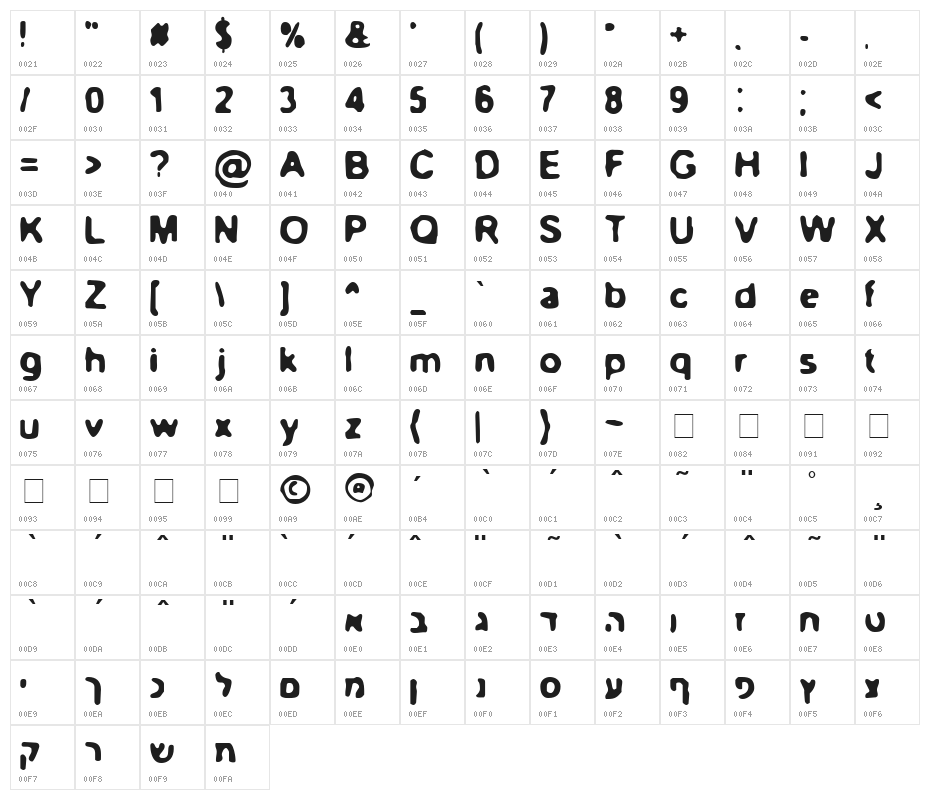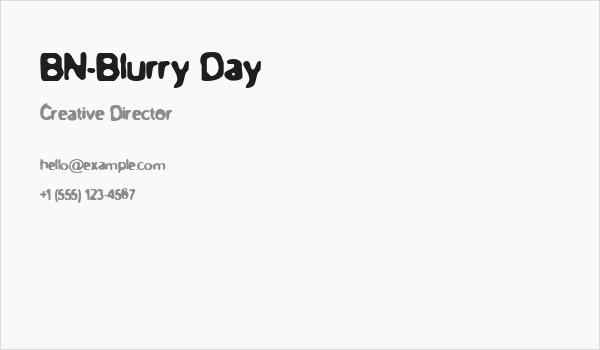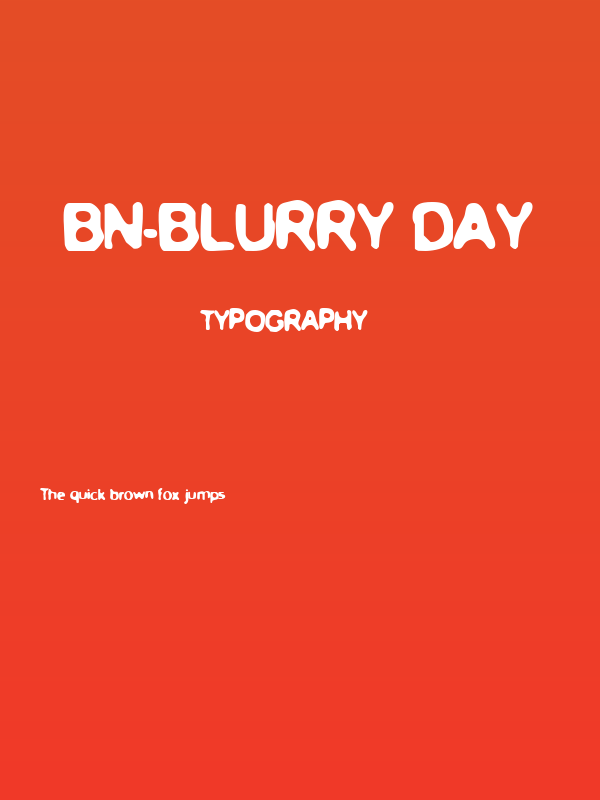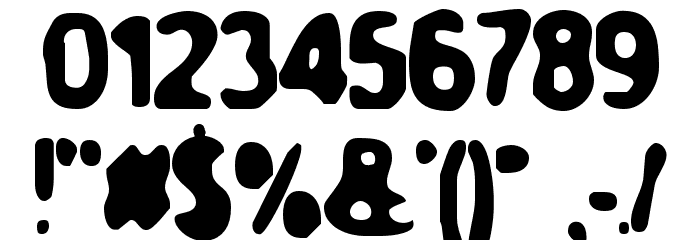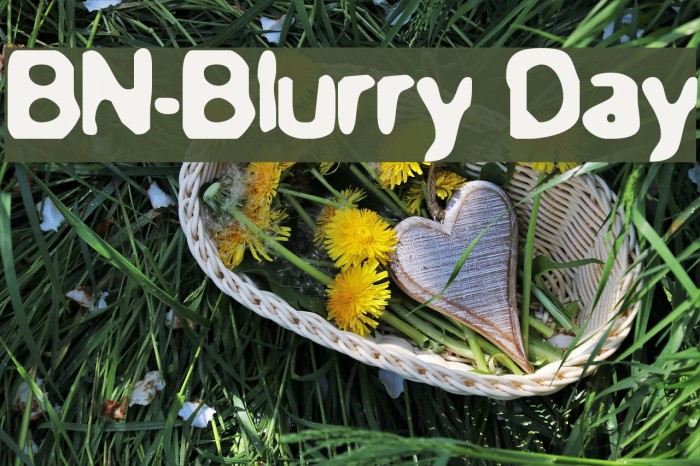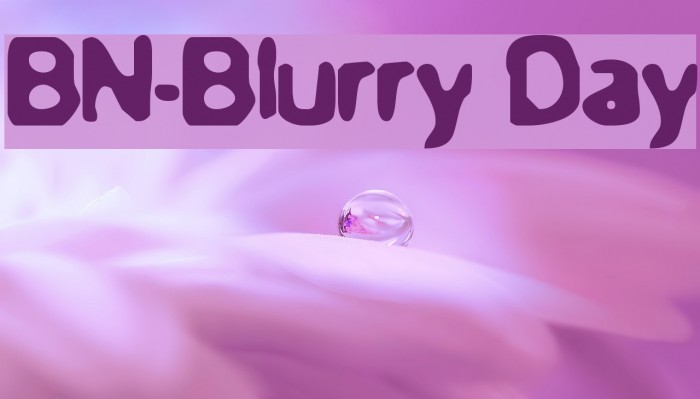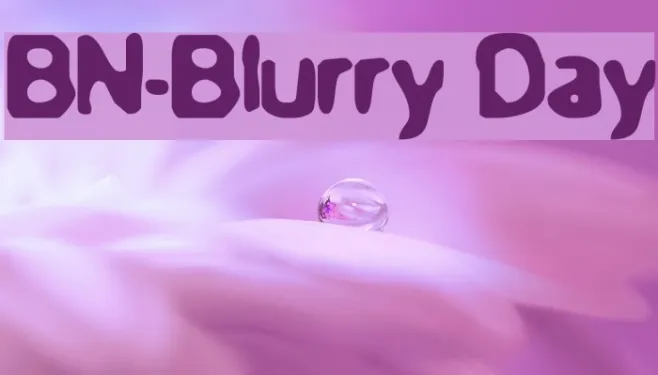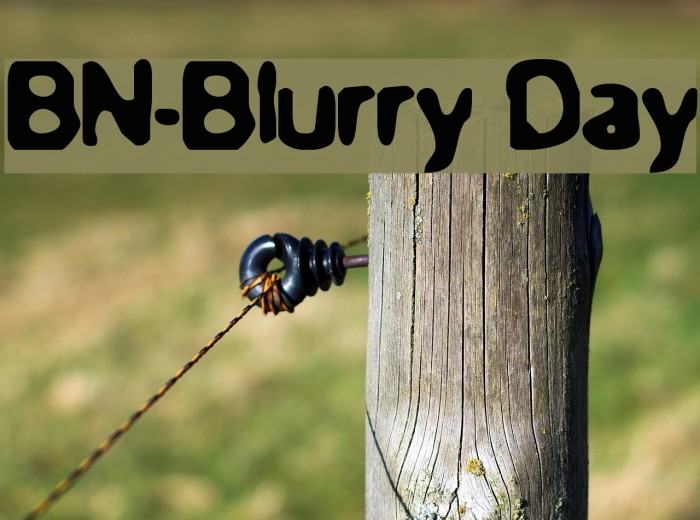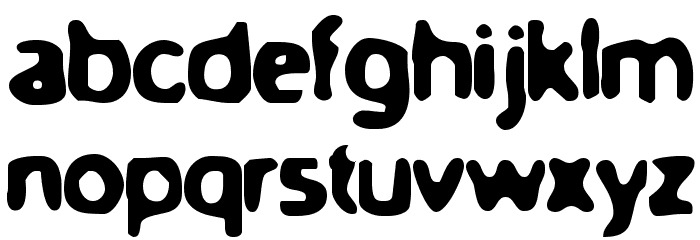
BN-Blurry Day Font
BN-Blurry Day Description
This font features a playful and bold design with rounded, irregular shapes that give it a unique, organic feel. The characters are thick and slightly distorted, resembling a hand-drawn style with a whimsical touch. The uppercase and lowercase letters maintain a consistent weight, while the numbers and special characters follow the same quirky aesthetic. This font's distinctive appearance makes it stand out, ideal for creative and informal projects.
| Overall Style | Playful, Whimsical |
| Proposed Projects | Ideal for children's books, playful branding, posters, and creative design projects. |